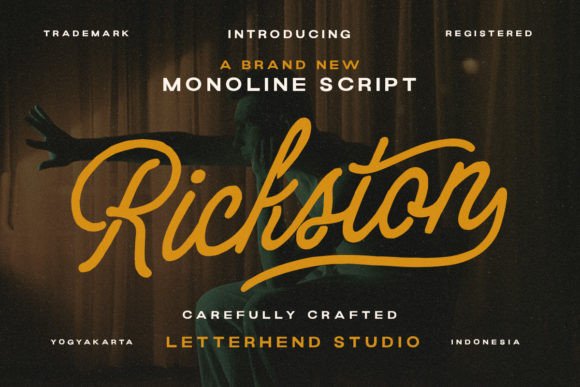
Prepare yourself for an extraordinary typographic journey with Rickstone Font, a captivating monoline script designed to ignite your creativity and elevate your designs to new heights. Rickstone is not just a font; it's an experience that weaves elegance and charm into every letterform. Crafted with meticulous care, this script exudes a sense of timeless beauty, making it the perfect choice for designs that demand a touch of sophistication and personality.
With its clean and casual demeanor, Rickstone Font effortlessly blends into any design aesthetic, adding a touch of understated elegance that speaks volumes. Its versatility knows no bounds, making it an ideal choice for a wide range of projects, from captivating logos and headlines to eye-catching signage and formal invitations. Whether you're a seasoned designer or just starting your creative journey, Rickstone Font is the perfect companion to unleash your imagination and create designs that leave a lasting impression.
Step into the world of Rickstone Font and discover a treasure trove of possibilities. Its carefully crafted glyphs and ligatures, accessible through PUA encoding, provide endless opportunities for customization and creativity. Explore the depths of this font's charm and let your designs flourish with a unique and unforgettable touch.
Rickstone Font is more than just a collection of letters; it's an invitation to embark on an artistic adventure where your imagination takes center stage. Let your creativity soar as you craft designs that captivate, inspire, and leave an indelible mark on the world. Dive into the world of Rickstone Font and unlock the true potential of your design endeavors.